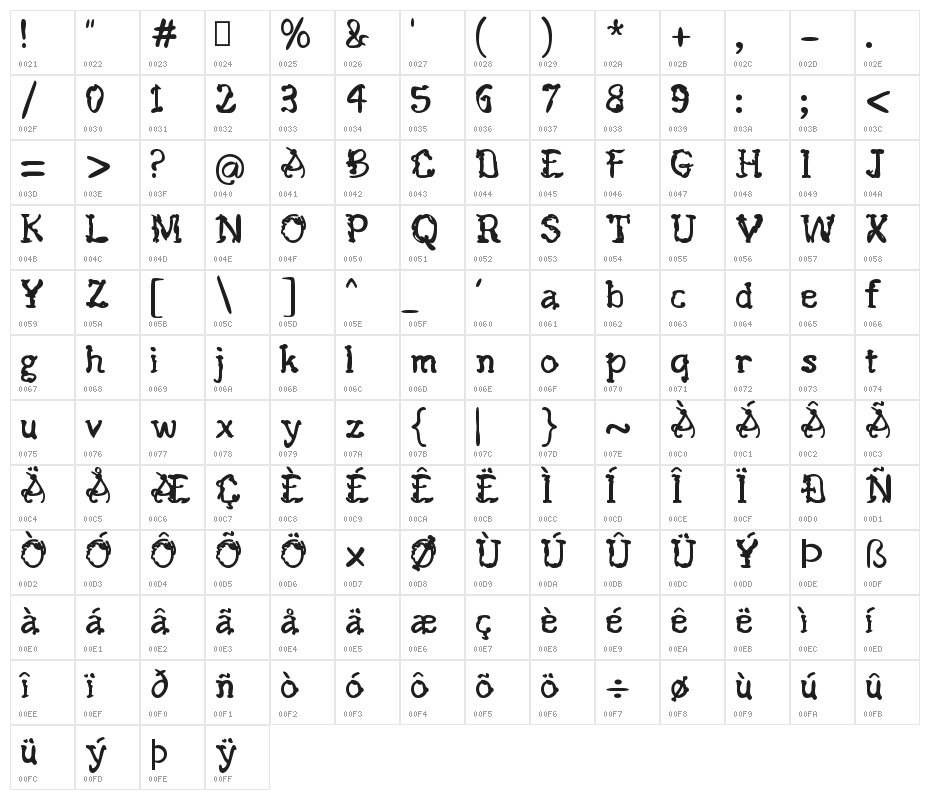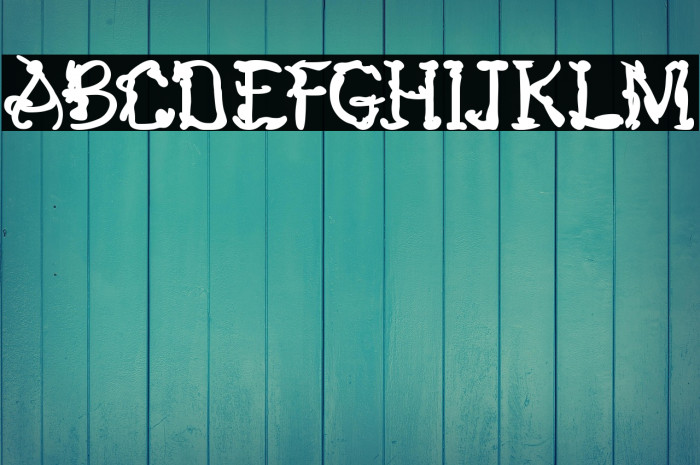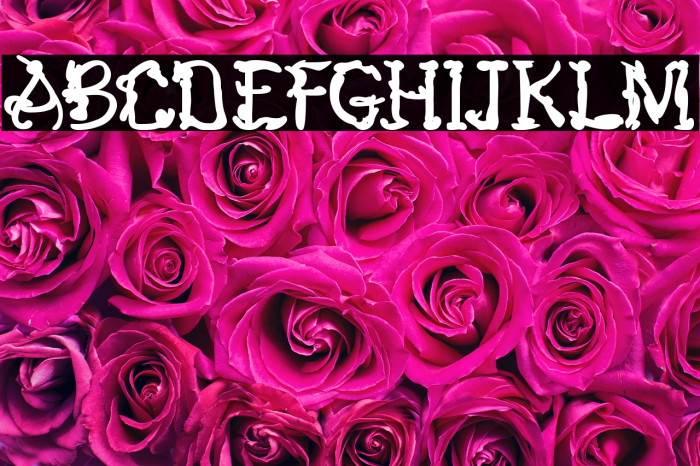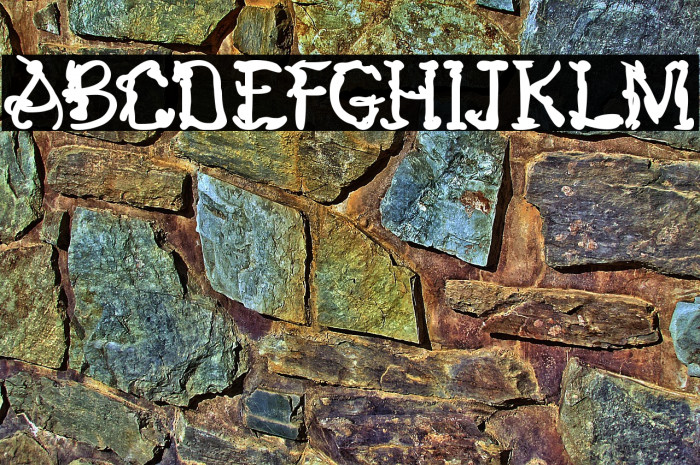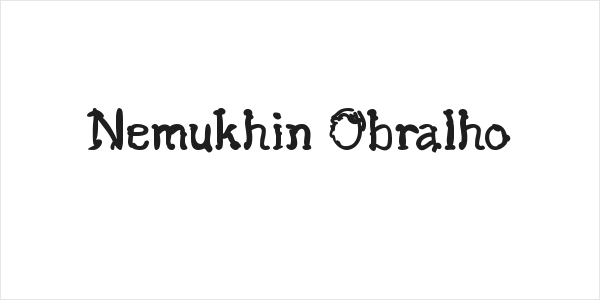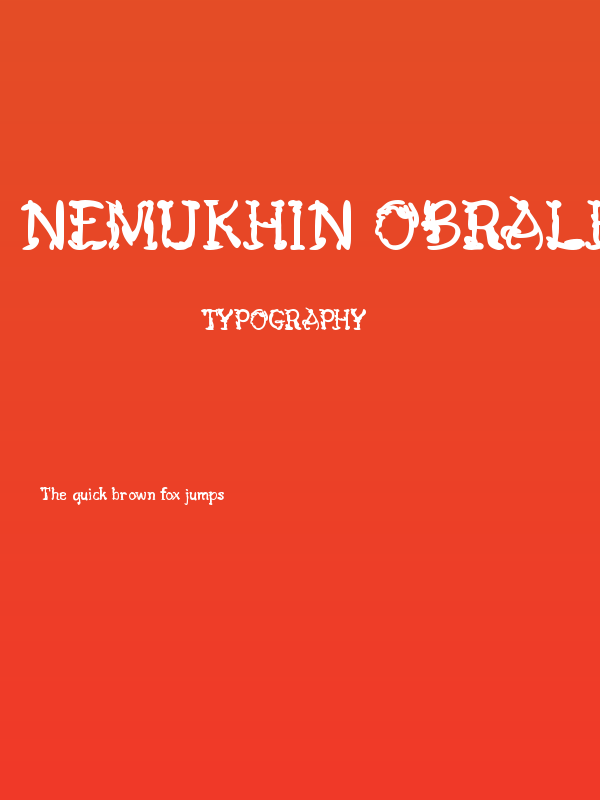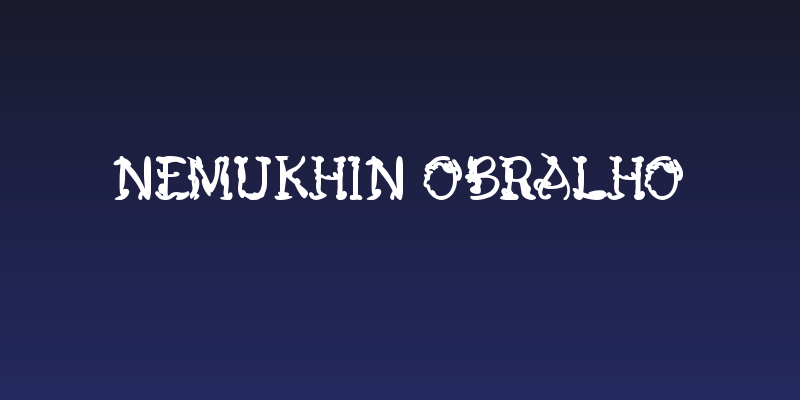
Nemukhin Obralho Font
Nemukhin Obralho Description
This font features a bold and expressive style with a unique, artistic flair. The characters are crafted with a distinct, hand-drawn appearance, giving them a playful and creative edge. The uppercase letters are bold and prominent, while the lowercase letters maintain a consistent style with slightly rounded edges. Numbers and special characters follow the same artistic theme, making the font versatile for various creative projects. The overall design is reminiscent of a decorative or display typeface, suitable for eye-catching headlines or artistic designs.
| Use Case | Headlines, Logos, Artistic designs |
| Proposed Projects | Ideal for creative projects such as posters, album covers, and artistic branding. |